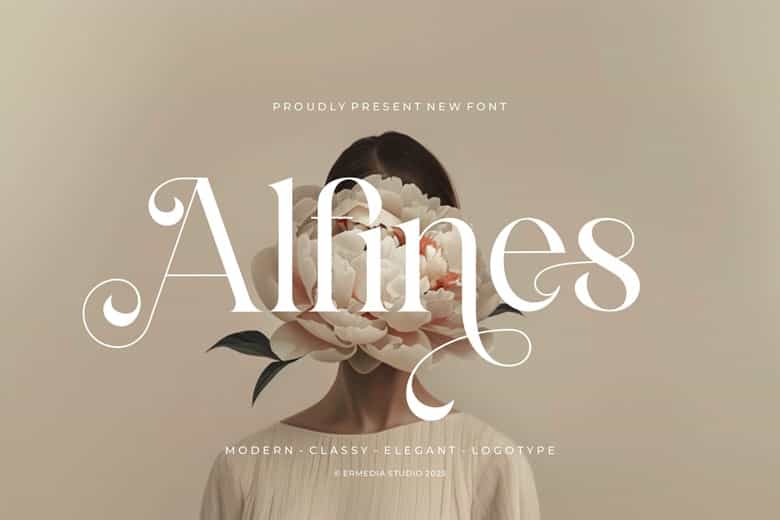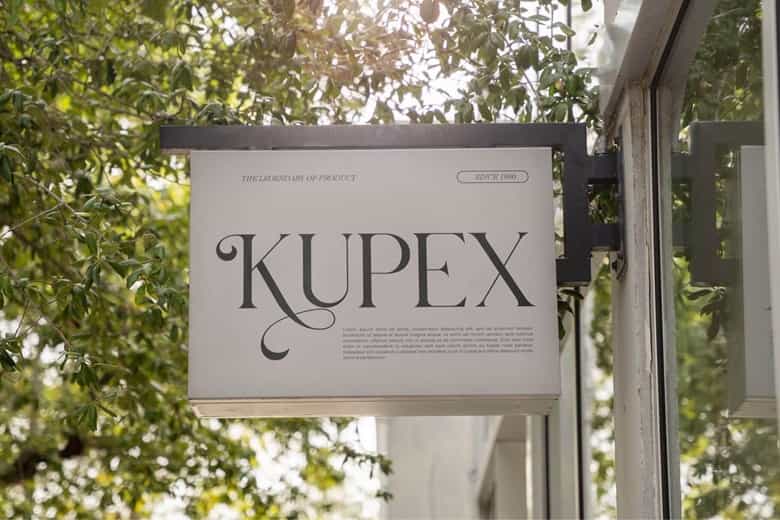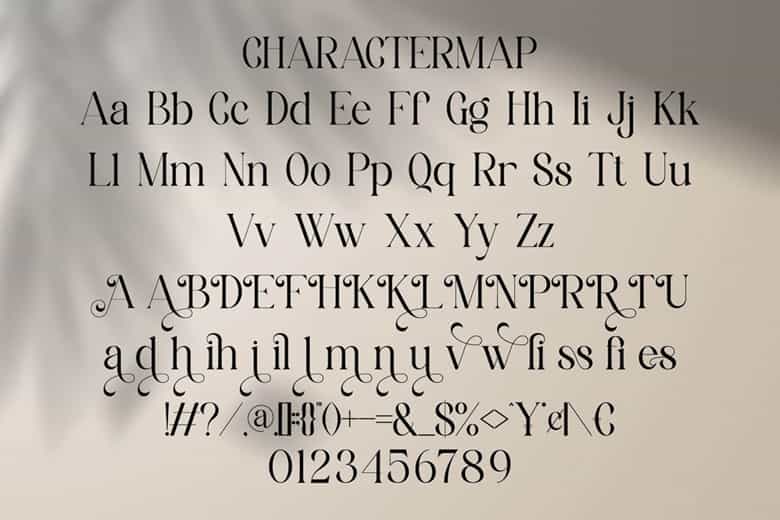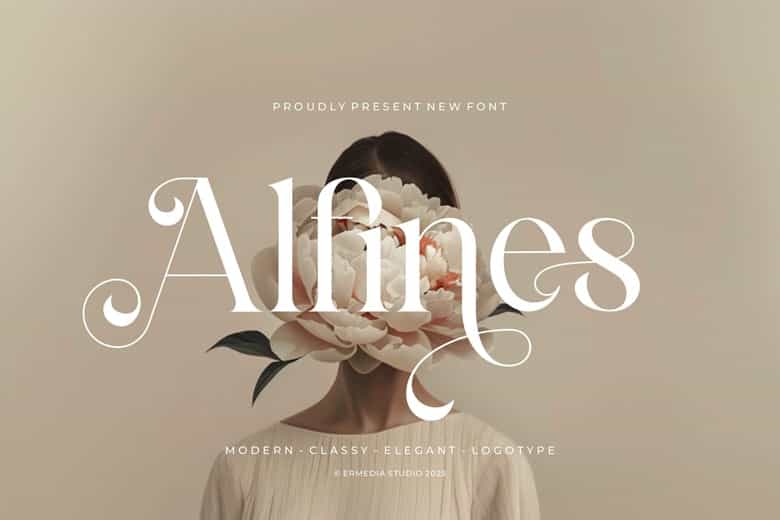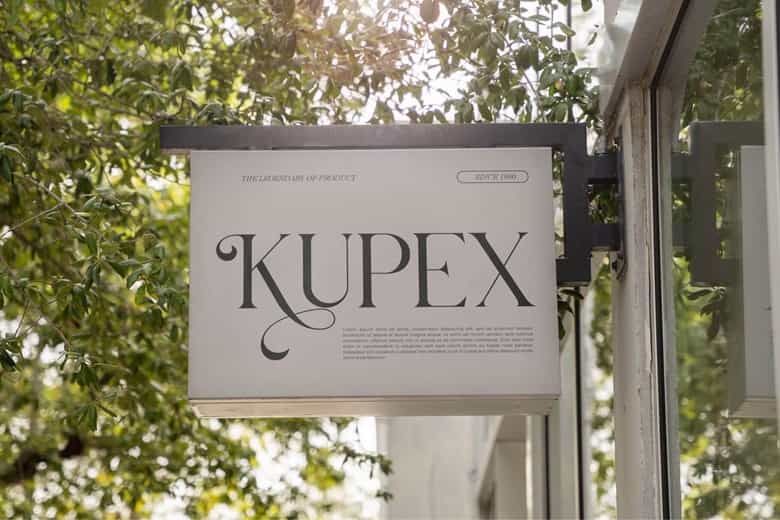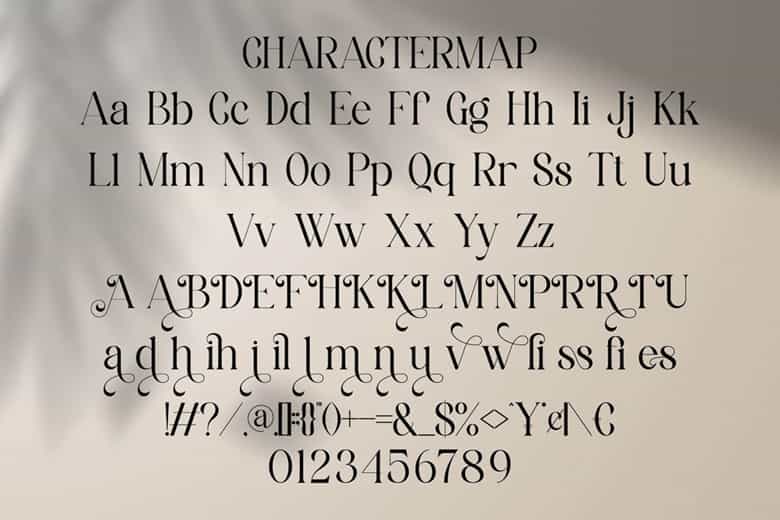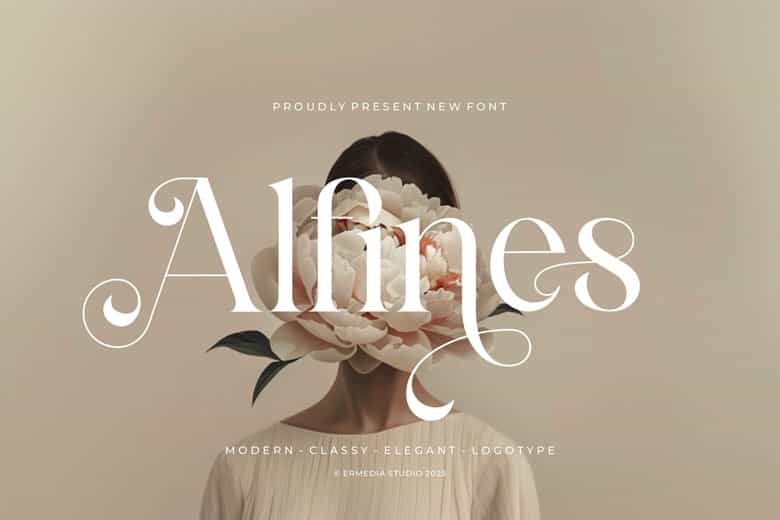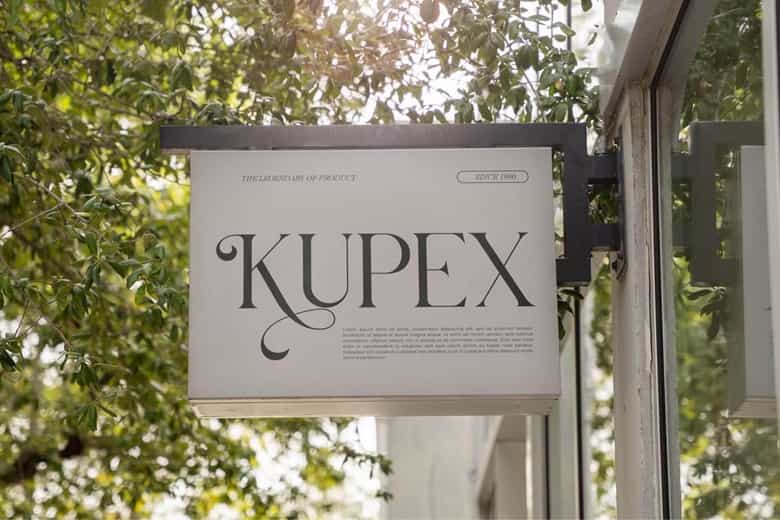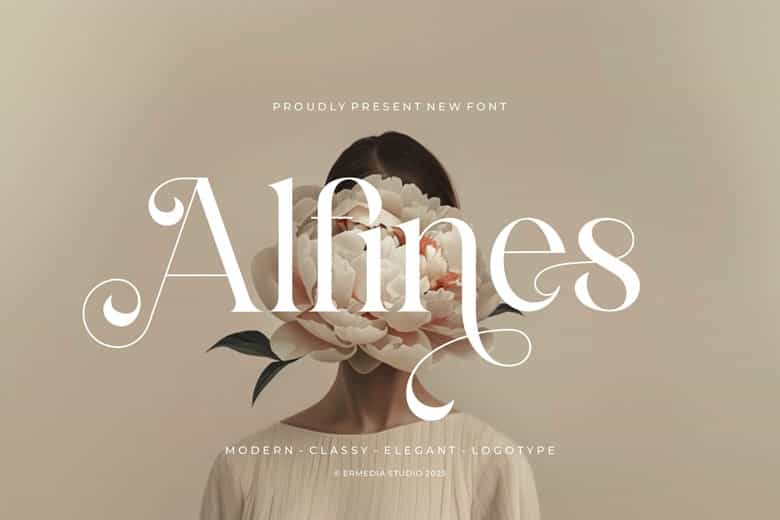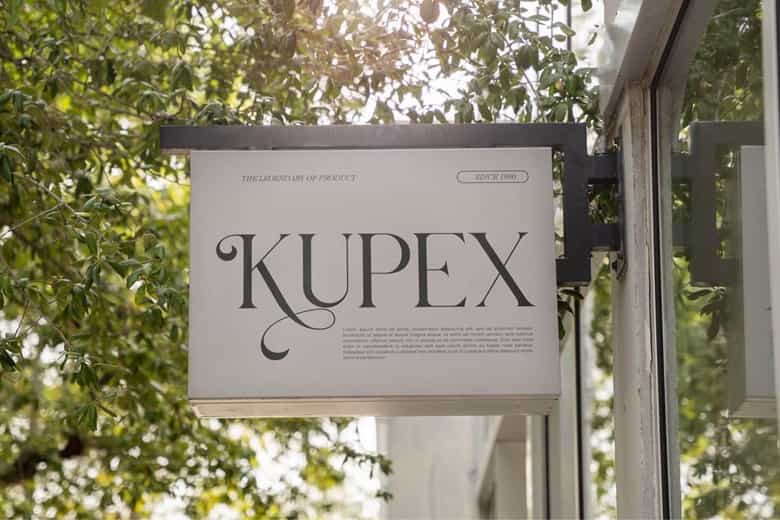
Alfines is contemporary and elegant Serif typeface to use in any branding and logo design. This Serif font is modern and very classy with beautiful character. The font can be used in the design of invitation card, cool logos, movie titles, movie names, business cards, book titles, brand names and in many more designs. Alfines is a sophisticated serif typeface which brings in the moment into its design. It is an ideal font because of its elegant ligatures.